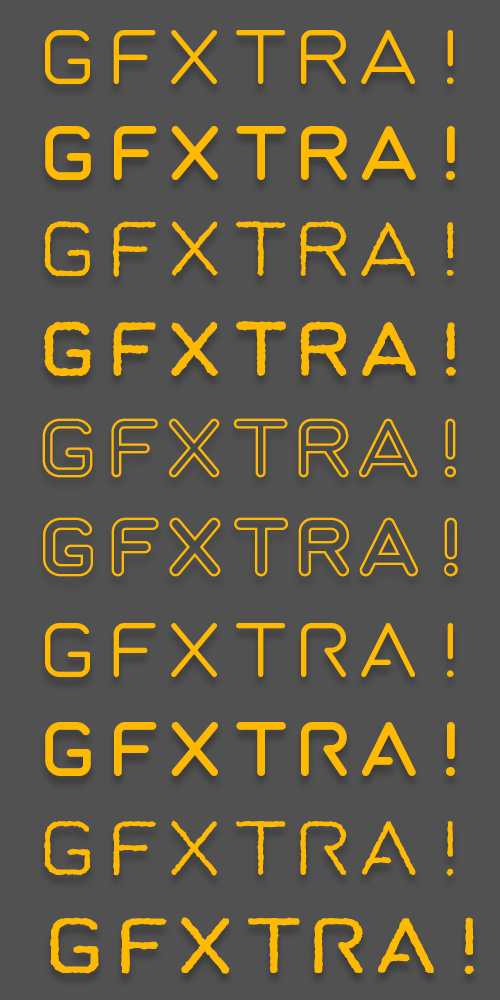
CM - Taurus Mono - Monospace & Stencil 94509
- Taurus Mono is round, simple, and crystal clear. It reproduces incredibly well at any size, and comes in a stencil version for all your analog needs. Each character is the same width, which makes applying it in a variety of tricky or special circumstances super easy. Each style contains over 300 glyphs. Uppercase/Lowercase characters only differ in the height and width.